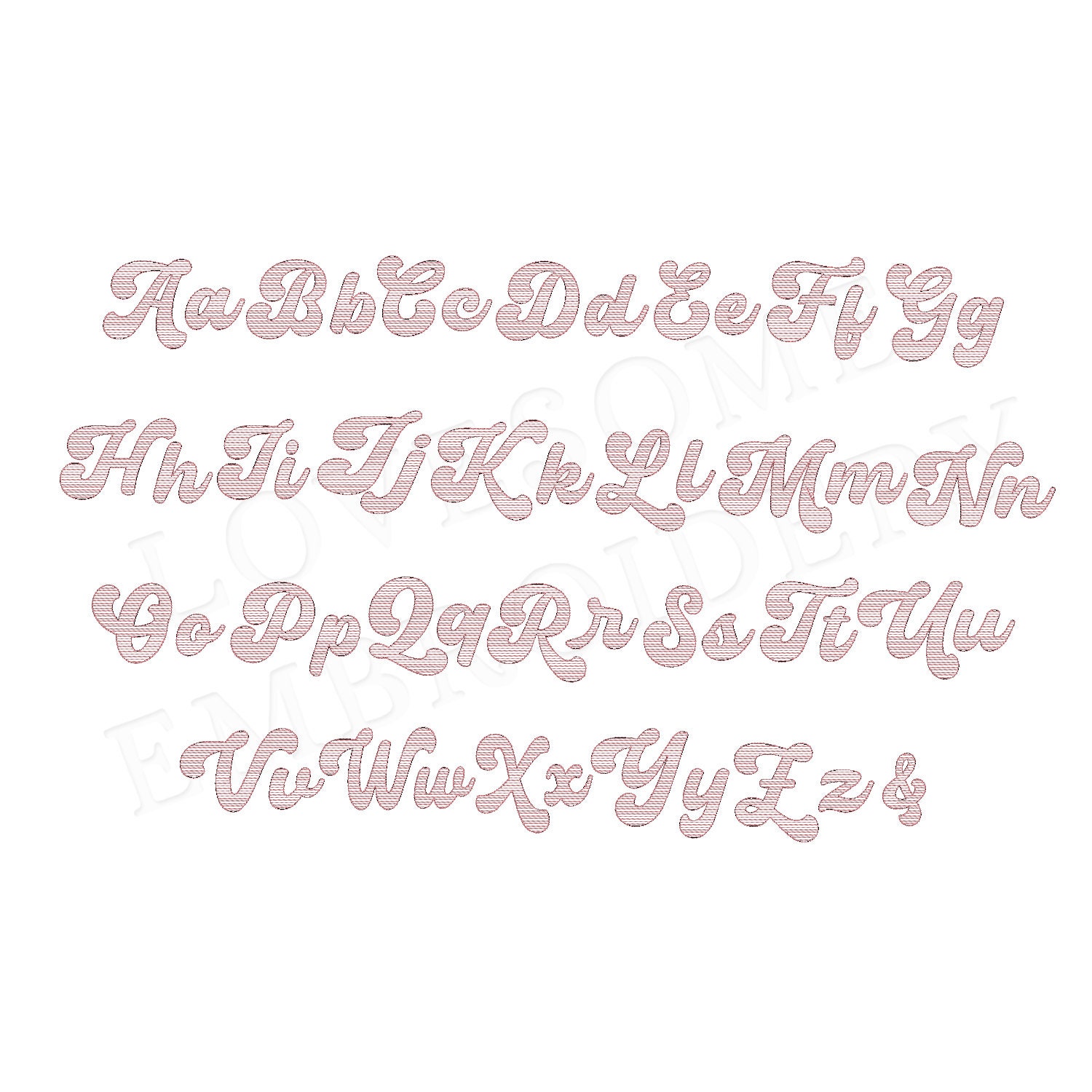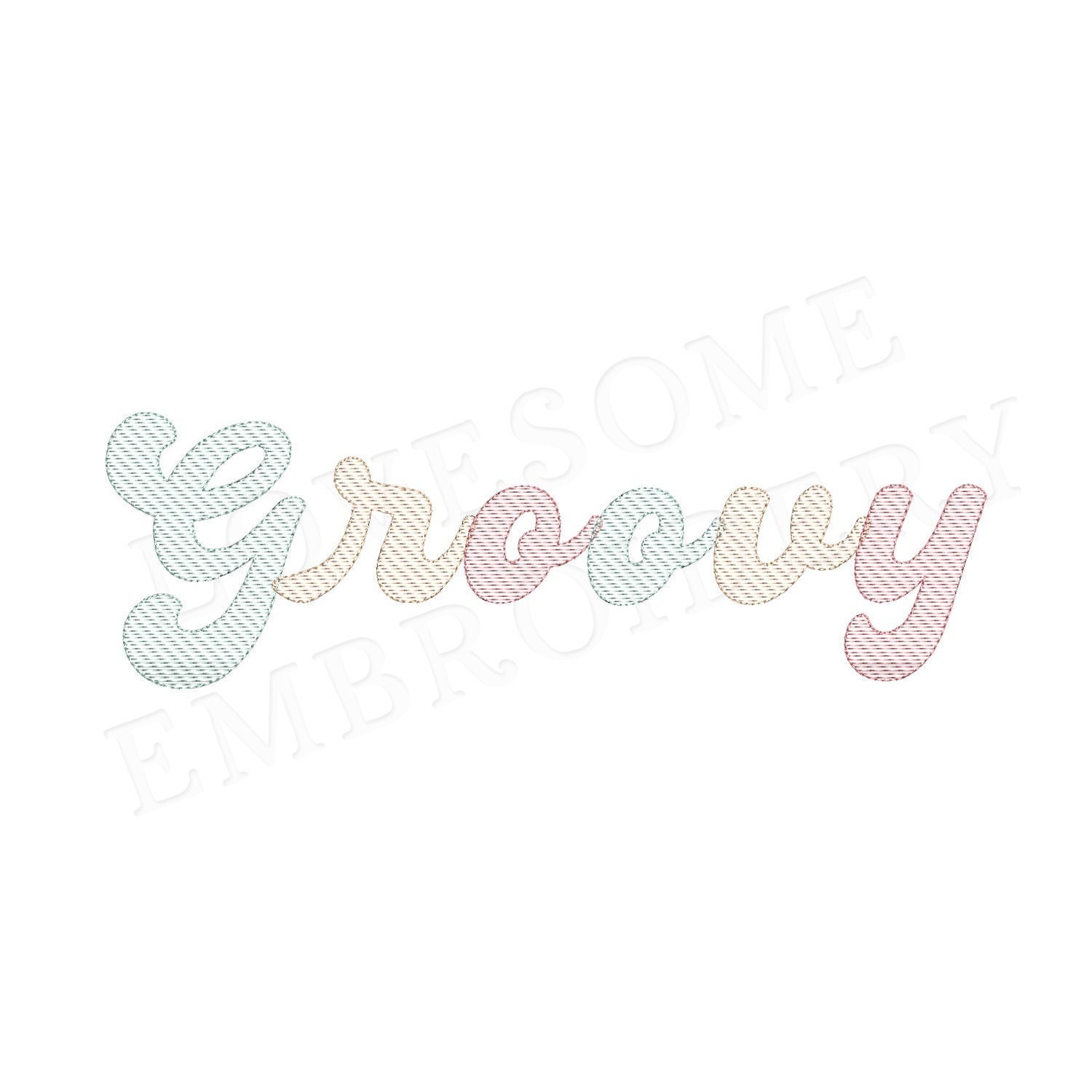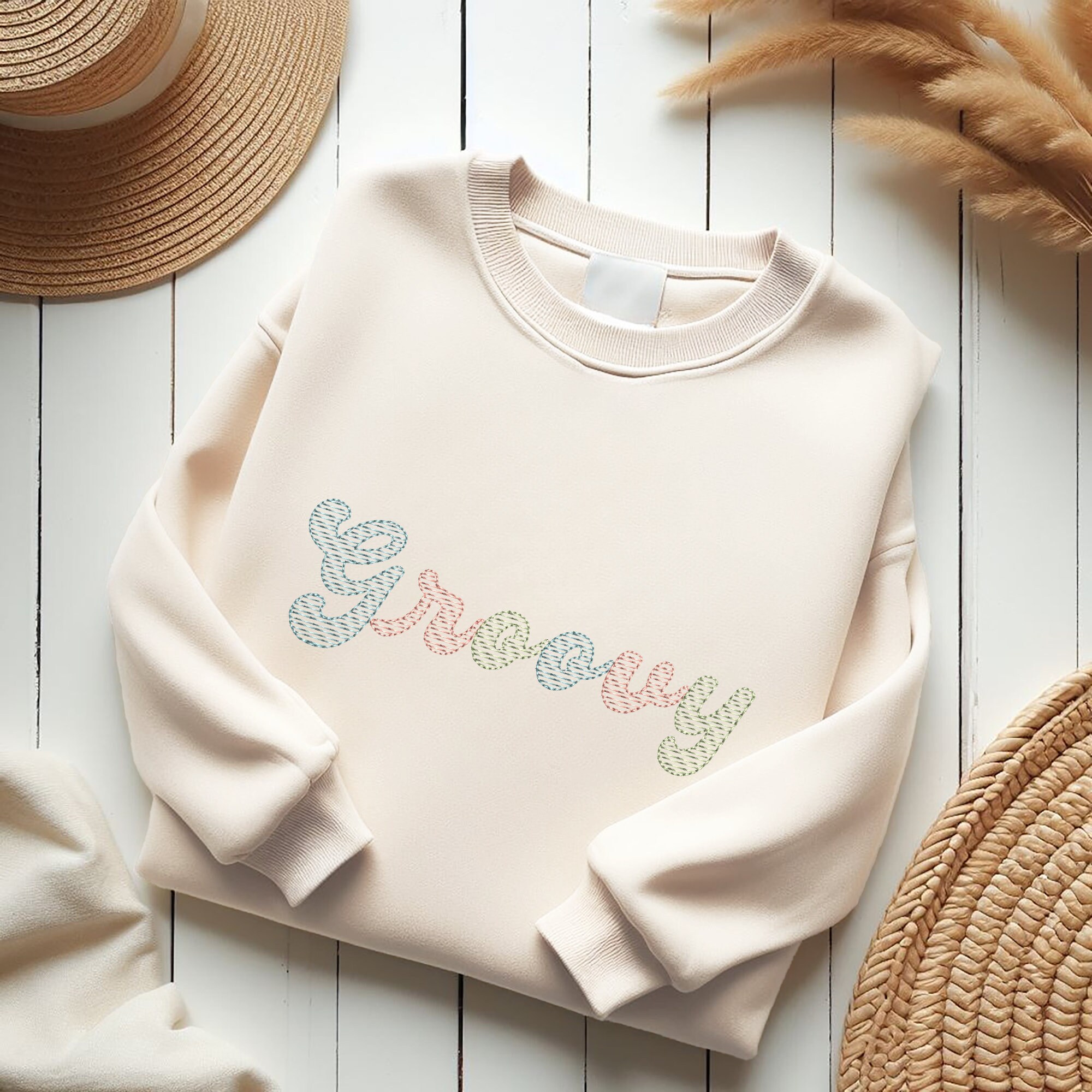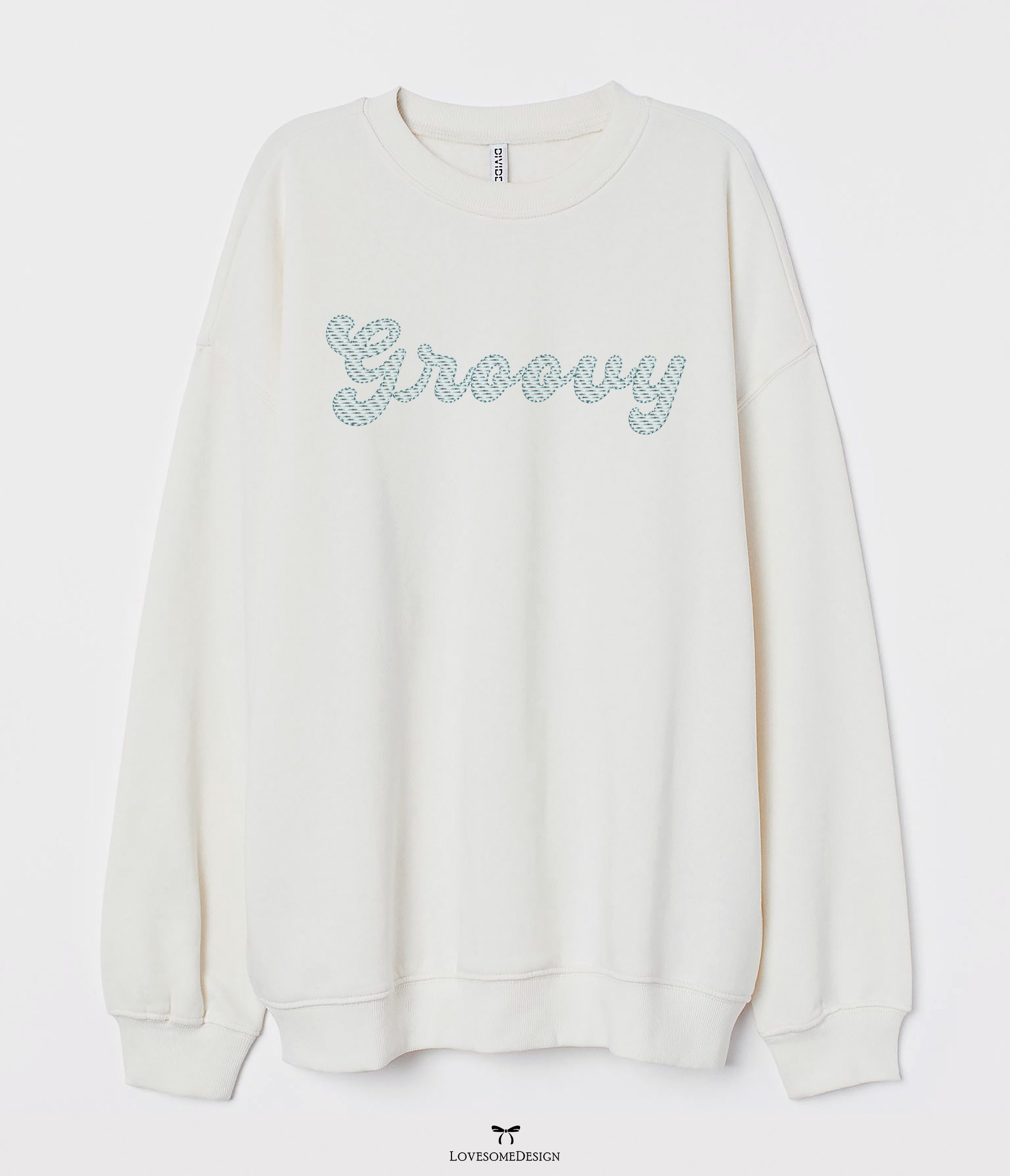
Groovy Script 3inch Quick Stitch Font A-Z Machine Embroidery Font Digital Download | Lovesome Design
This listing features a machine embroidery retro font set which includes quick stitch groovy embroidery files of 26 uppercase, 26 lowercase letters and an ampersand in 3inch size. (For the whole set, pls see the listing images.)